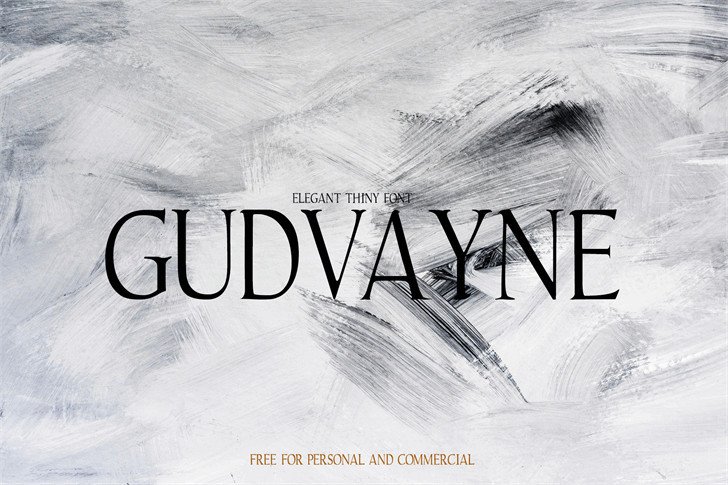
Gudvayne Typeface
Say Hello Guy’s . Thank you for looking Gudvayne Font. This is the classic serif I’ve been looking for in my design work – clean lines, modern serifs, and just a touch of vintage. We are sure you will not be sorry if you choose the Gudvayne font to be your collection. This font looks simple and elegant, the font is also very easy to read and suitable to be applied anywhere.
This font is perfect for your collection for making designs that are elegant, unique and slightly formal. Very good for logotype, header texts, quote design, menu design, etc.